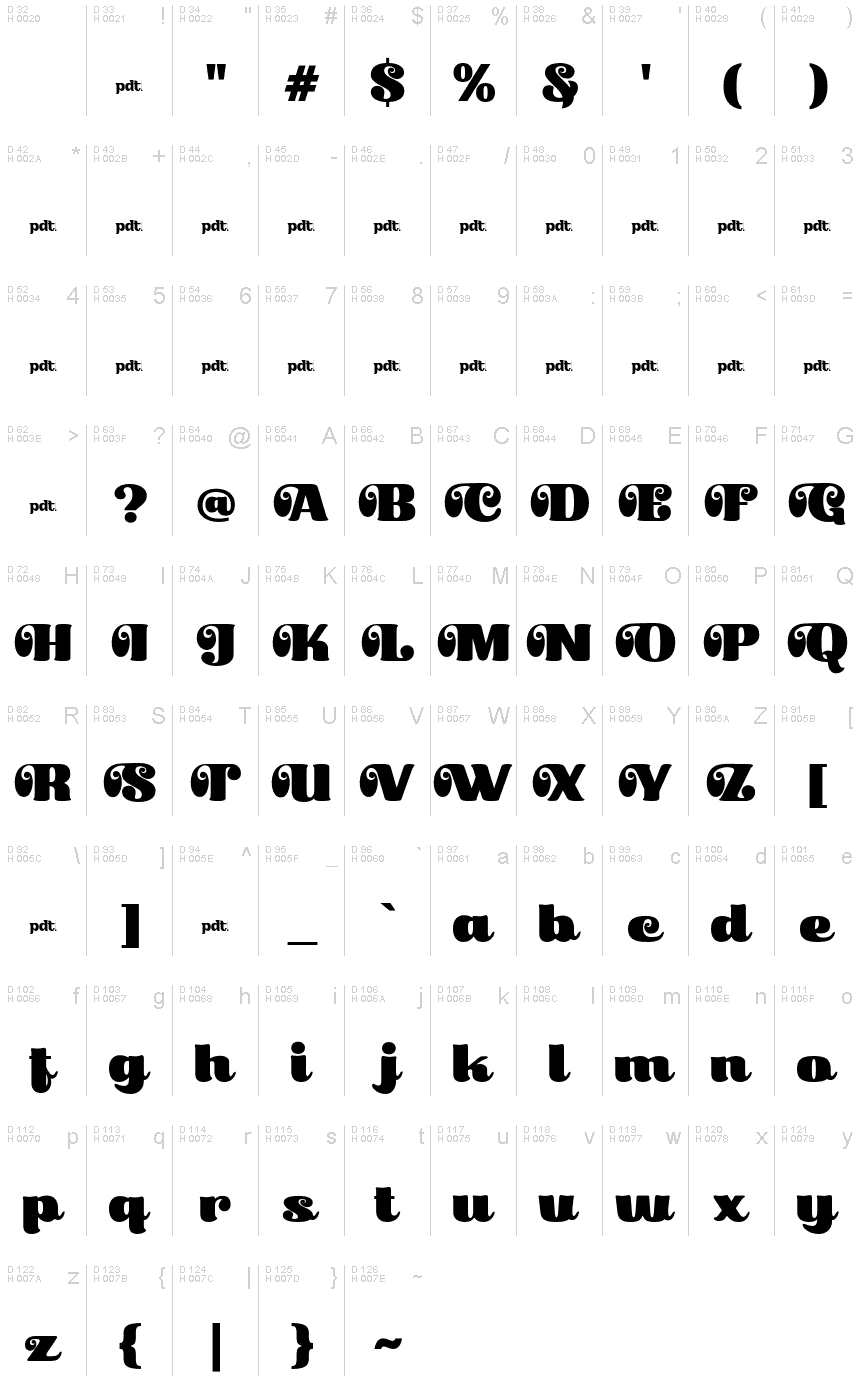
Rantic Kafis is a display font designed by Rozi of Productype. The curly and groovy style of this extra-bold, expanded typeface will add a touch of playful elegance to any design project. Perfect for fashion magazines, bold branding campaigns, and invitations, Rantic Kafis will make your words pop with personality and flair. With its swooping curves and exaggerated lines, this font is perfect for businesses that want to stand out from the crowd. Whether you're creating posters for an event or designing a logo for your new startup, Rantic Kafis is the perfect choice for anyone looking to add some personality to their designs.